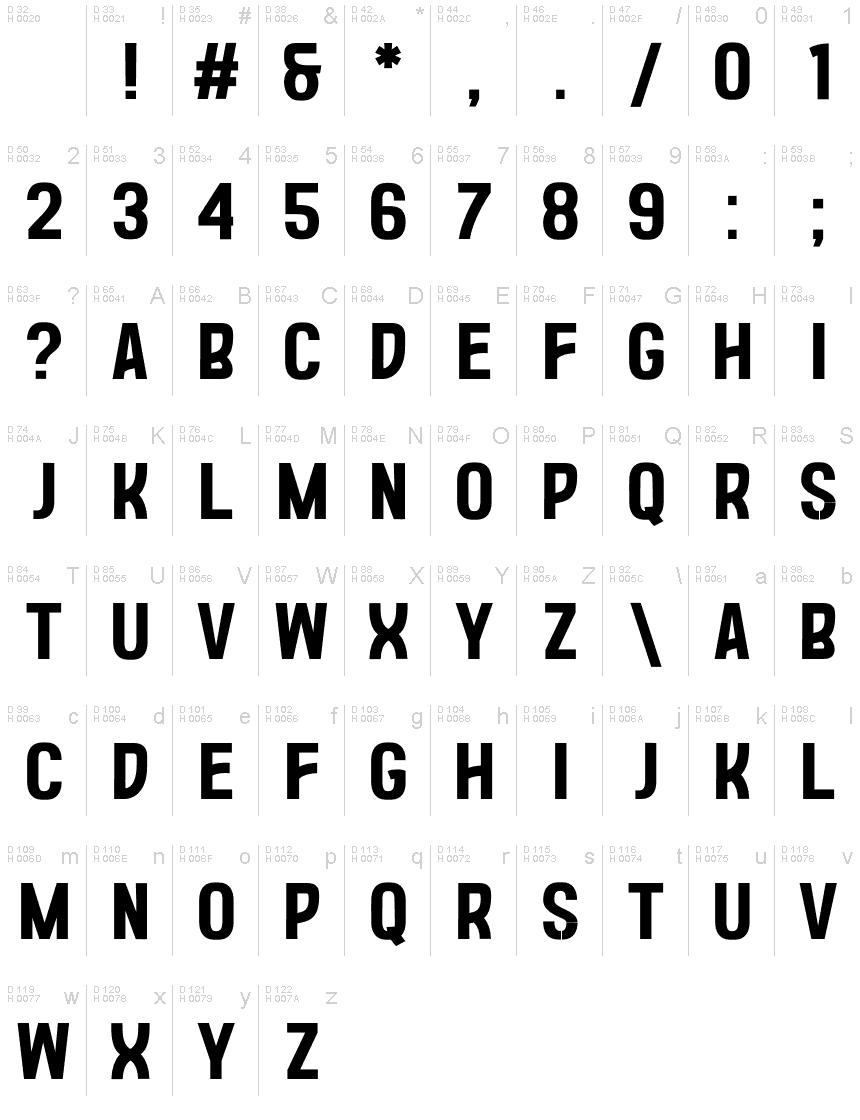
Kanopi Brazil Regular
Kanopi Brazil is a light, inspiring sans serif font designed by Raxel Studio. Perfect for making an impression in headlines and logos, it's also great for web design, product packaging, and other creative projects.